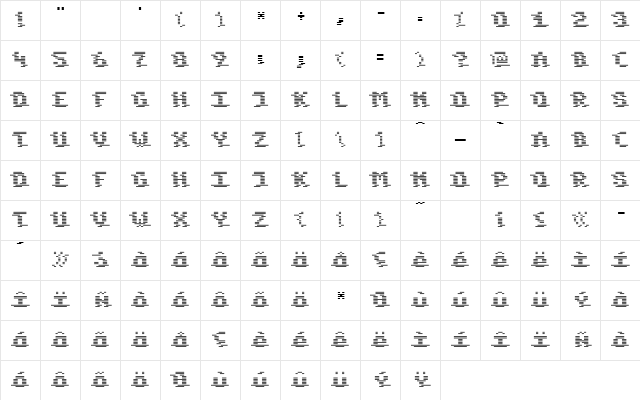
Komodore Destroy Free Font
Komodore Destroy
Style: Destroy
Design Context for Komodore
Komodore is a composed and adaptable typeface that performs quietly and consistently across a wide range of design contexts.